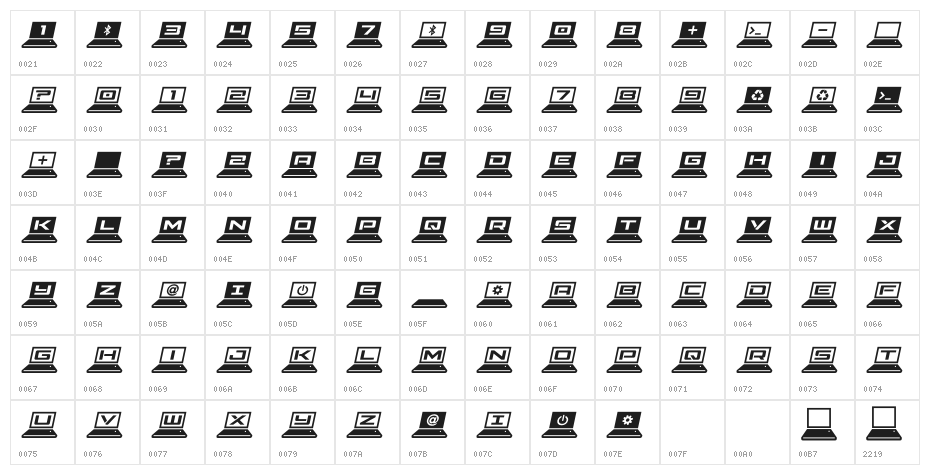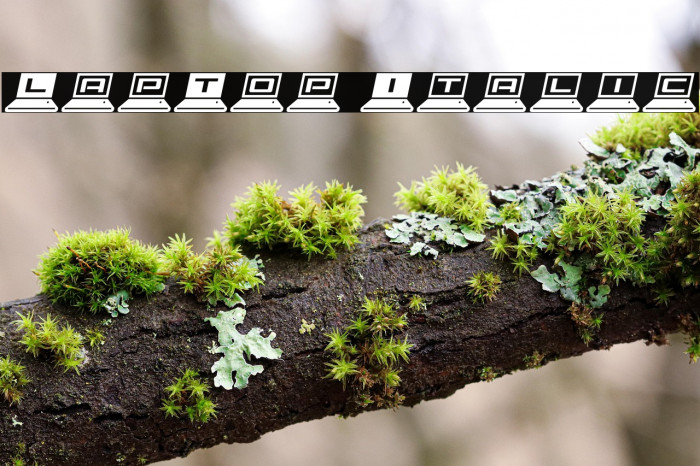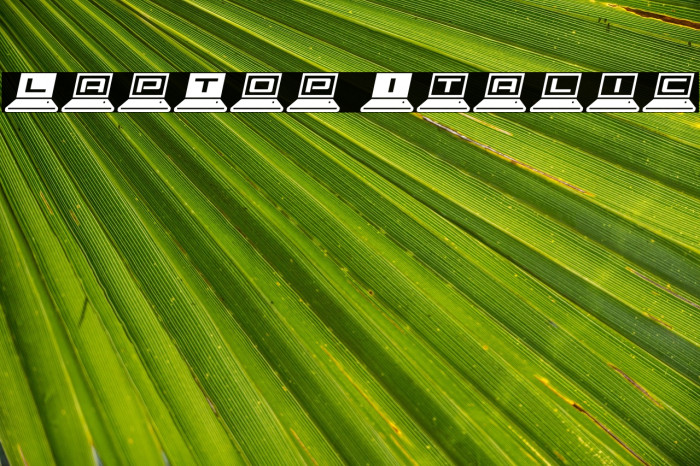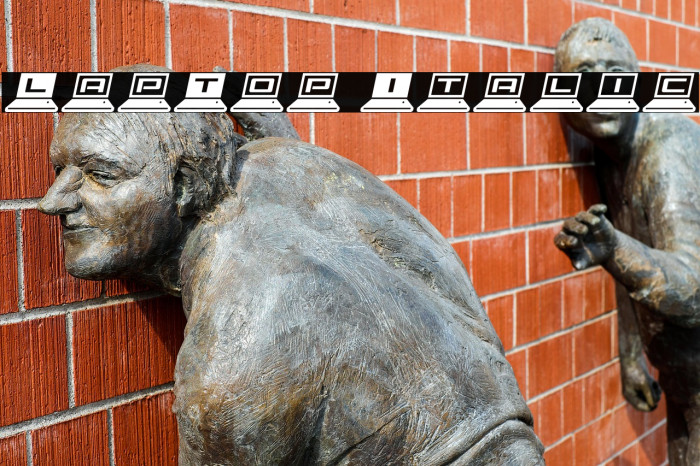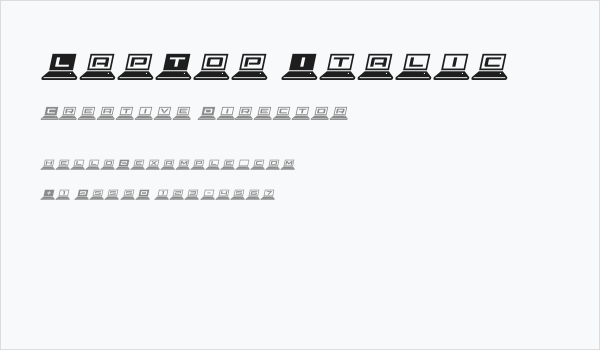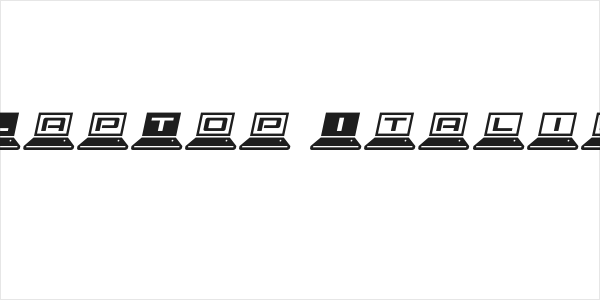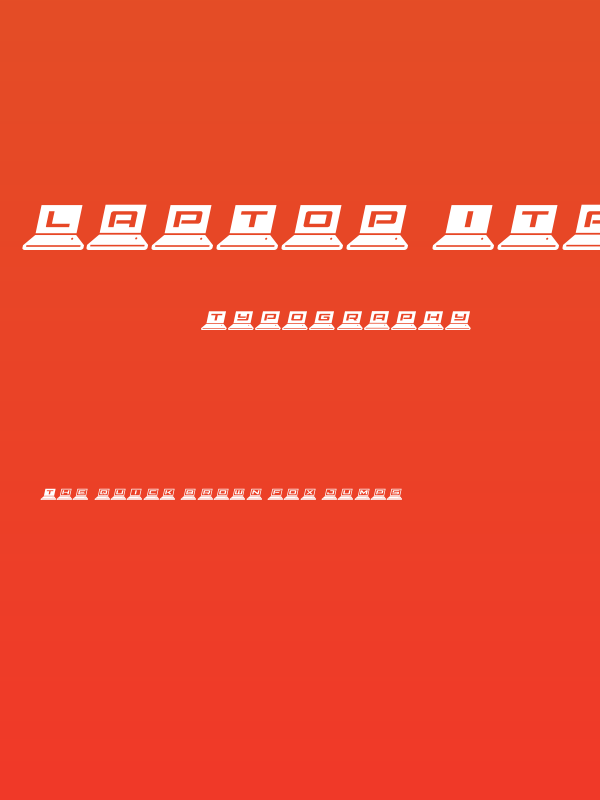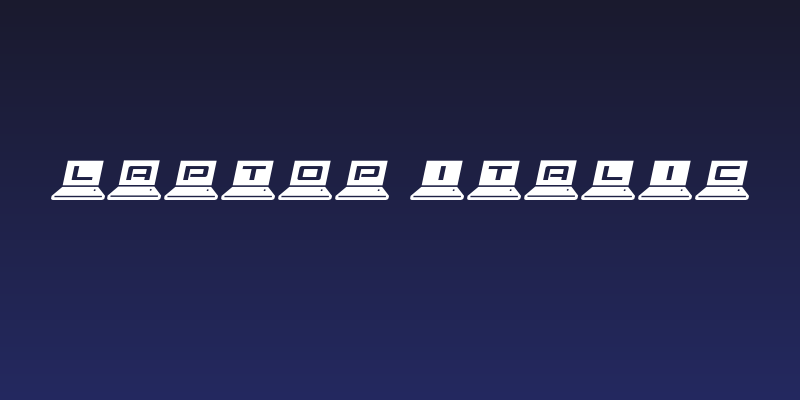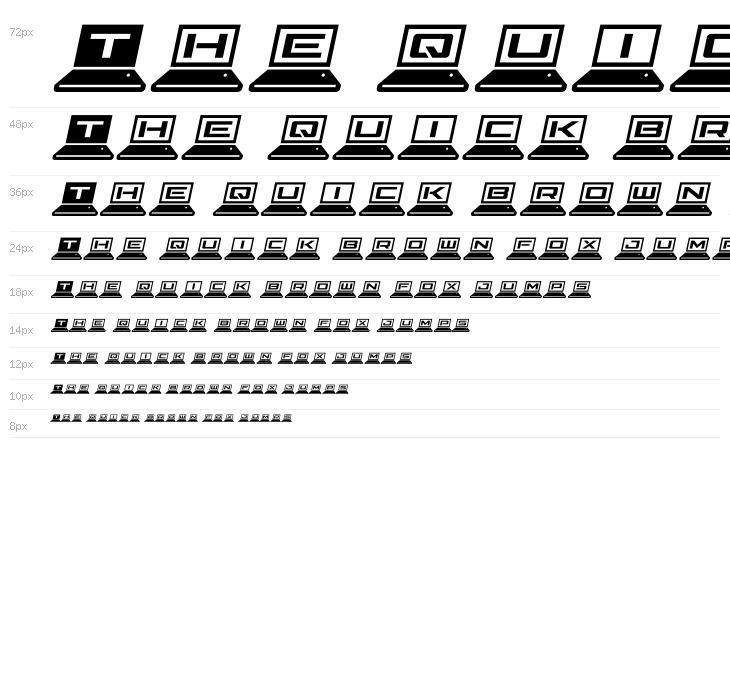
LapTop Italic Font
LapTop Italic Description
This font features a unique design where each character is enclosed within a stylized laptop icon, giving it a distinct technological and modern appearance. The uppercase and lowercase letters, as well as numbers and special characters, are all presented in this format, creating a cohesive and thematic look. The characters are bold and have a strong presence, making them stand out against the laptop icon background. The style is playful yet structured, suitable for projects that aim to convey a sense of innovation and digital culture. The font's design is consistent across all characters, maintaining a uniform look that enhances readability while adding a decorative touch.
Proposed ProjectsIdeal for tech-related branding, digital marketing materials, educational tools, and innovative product packaging.